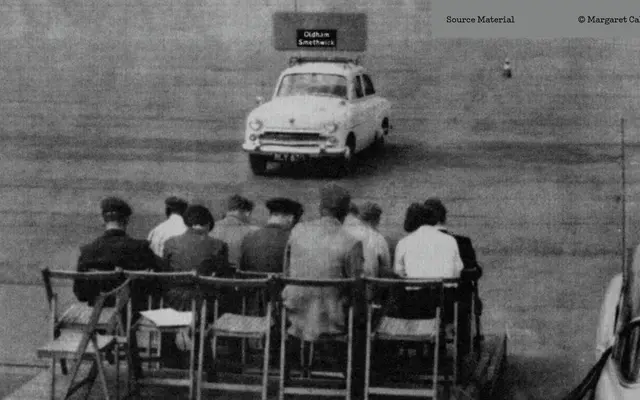
New Transport
A2-Type · Jock Kinneir, Margaret Calvert · 2012
A digital adaptation of Kinneir and Calvert's 1960s motorway lettering, expanded into a full seven-weight family and adopted as the official typeface of UK government websites.
Originally drawn for British motorway and all-purpose road signs by Jock Kinneir and Margaret Calvert, the source material was digitised and extended by A2-Type into a fourteen-style family spanning Thin to Black with matching italics. A bespoke version was commissioned by the UK Government Digital Service in 2012 and remains the mandated typeface for all gov.uk websites. Its open apertures and generous x-height stem directly from the legibility demands of high-speed signage, which makes it equally capable in screen and document settings.
Derived from the Kinneir and Calvert Transport lettering designed for British motorway signage in the 1960s, it exhibits the open, legibility-first characteristics of humanist sans-serifs engineered for wayfinding at speed.